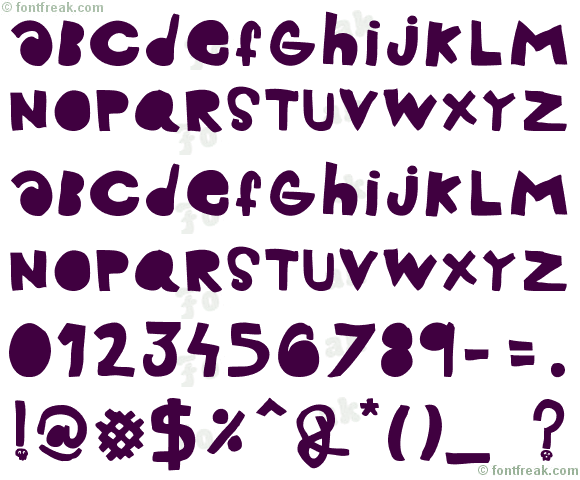
woodcutter hand2015
Woodcutter hand2015 is a distinctive handwritten font created by Woodcutter Manero, categorized as decorative. This font features unique, irregular strokes that evoke a sense of authenticity and craftsmanship, reminiscent of hand-carved wood. The stroke weight varies throughout the characters, giving it a playful and organic feel. The contrast is moderate, allowing for legibility while maintaining a fun, artistic flair. The spacing is well-balanced, ensuring that each character stands out without feeling overcrowded, making it ideal for various design applications.
This font is particularly well-suited for creative projects that require a personal touch. It works wonderfully for wedding invitations, where its charming aesthetic can enhance the romantic theme. Additionally, it makes a bold statement on movie posters, lending an adventurous vibe that can captivate audiences. Restaurant menus can benefit from its eye-catching style, adding a rustic or artisanal feel to the dining experience. Content creators will find it useful for social media graphics, where standout typography can attract engagement and interest.
What sets the woodcutter hand2015 font apart is its ability to combine artistry with practicality. Its playful, handcrafted appearance invites creativity while remaining functional for diverse applications. Whether you’re designing a heartfelt invitation or an engaging social media post, this font brings a unique character that can elevate your work. Don't miss the opportunity to enhance your designs with the woodcutter hand2015 font free download.